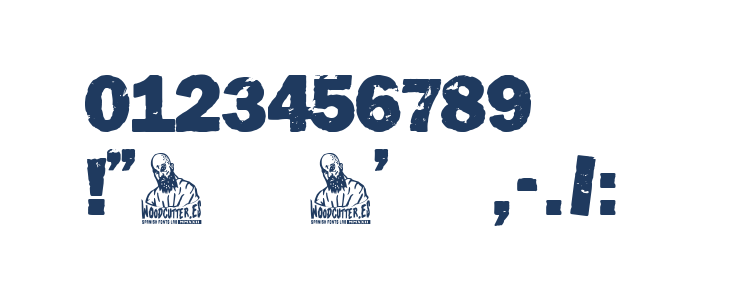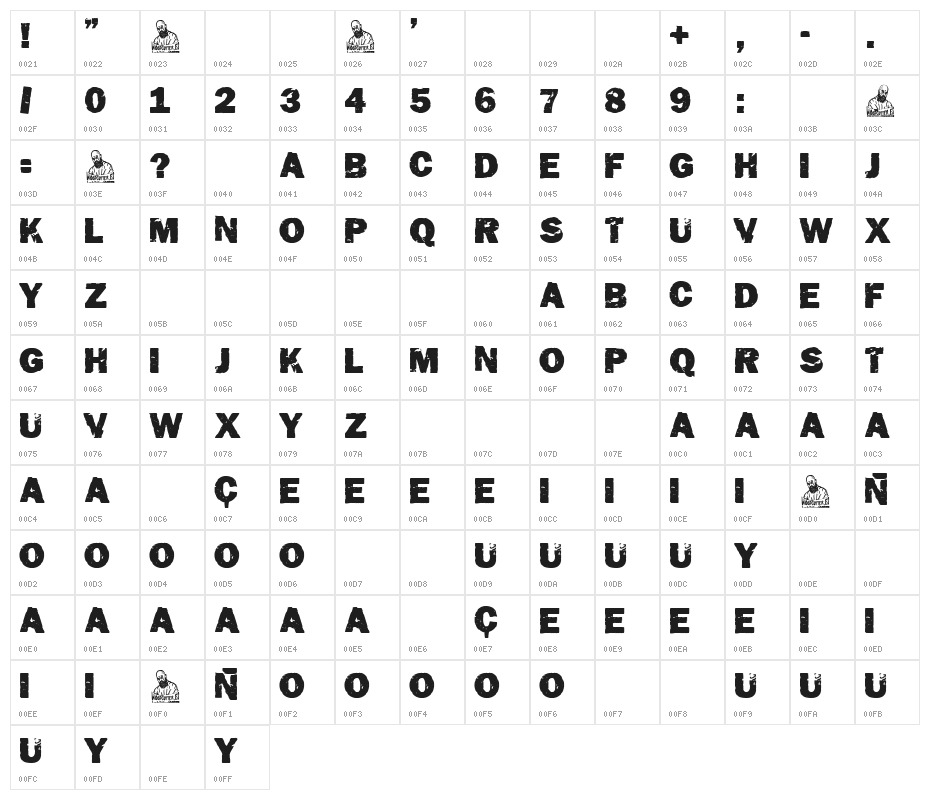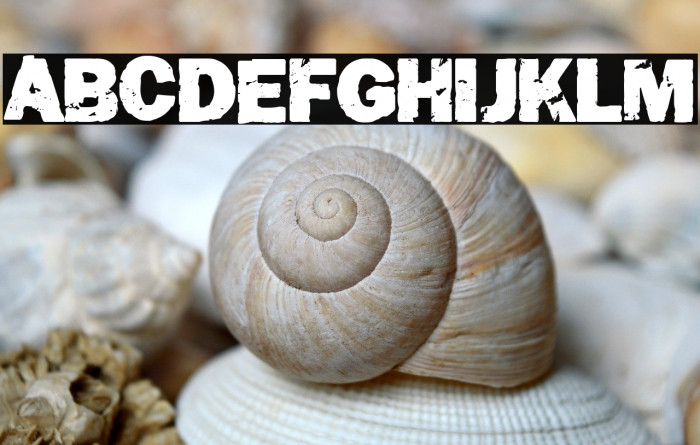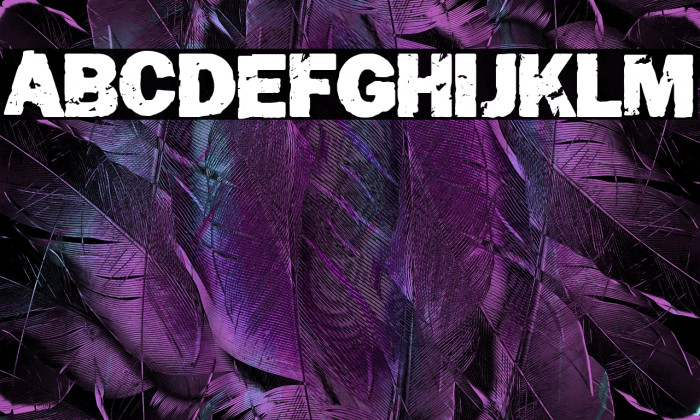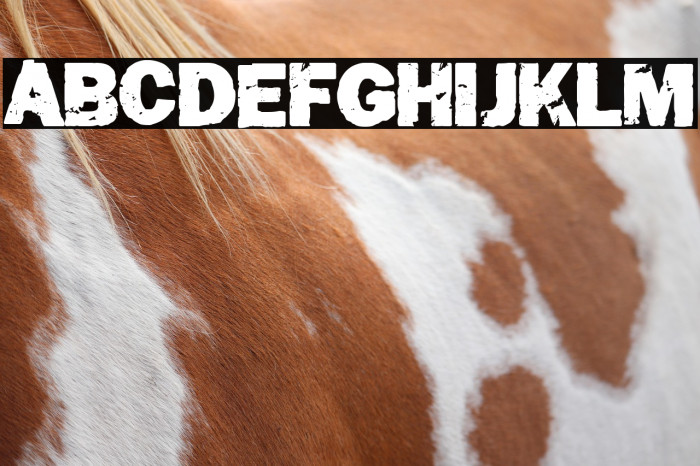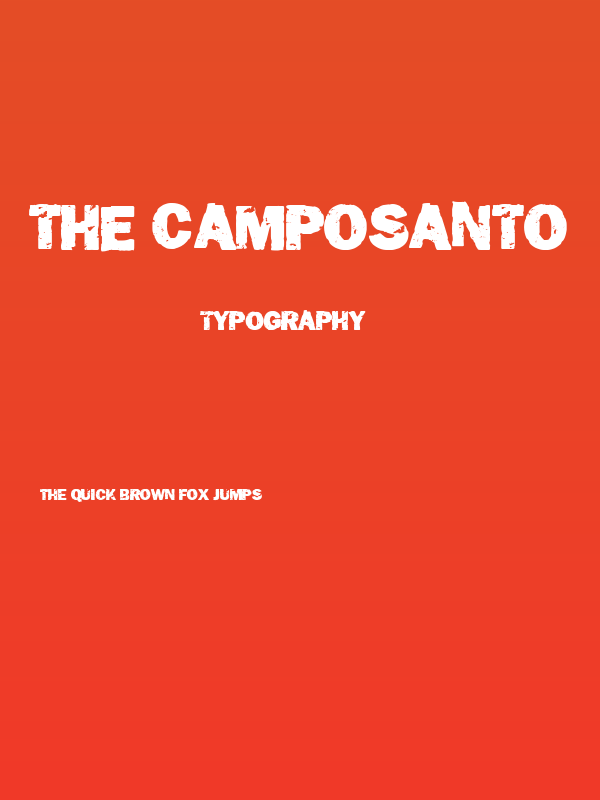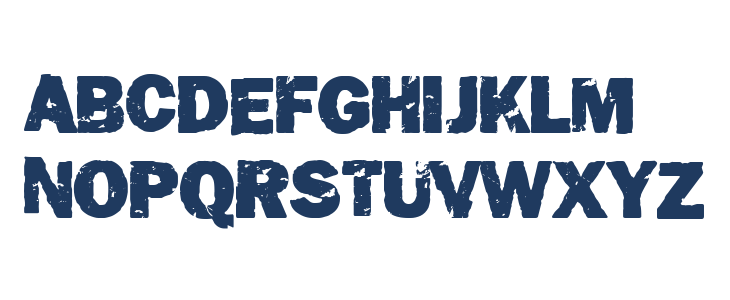
The Camposanto Font
The Camposanto Description
This font features a bold, distressed style with a rough, textured appearance that gives it a grunge or vintage feel. The characters are uppercase and numerals, with a heavy weight and a slightly uneven baseline, adding to its rugged charm. The texture within each letter creates a worn, weathered look, making it ideal for projects that require a strong, impactful visual statement. The font's boldness and texture make it stand out, perfect for designs that aim to capture attention with a gritty, urban aesthetic.
| Proposed Projects | Ideal for posters, album covers, branding for edgy or alternative products, and any design needing a bold, gritty aesthetic. |